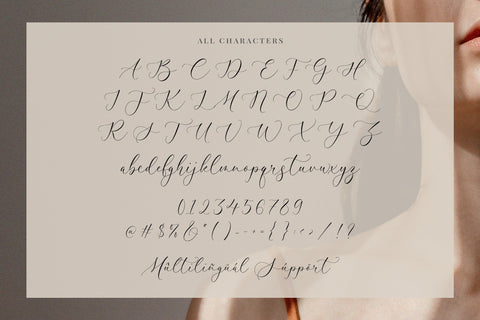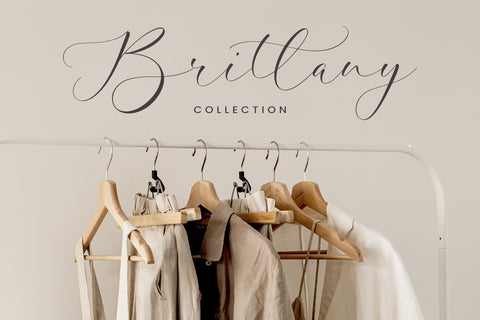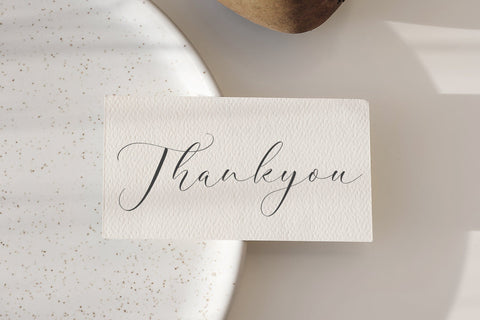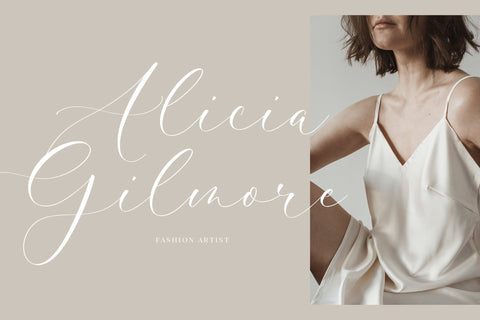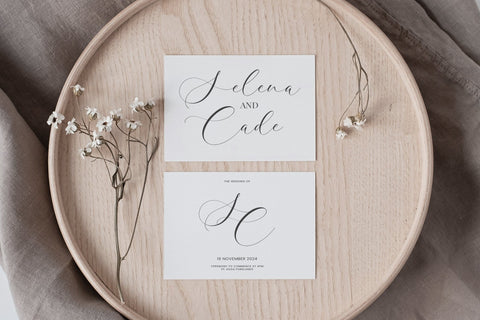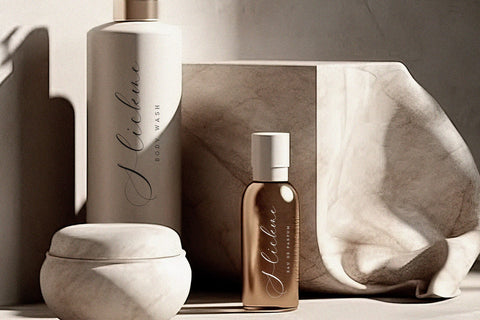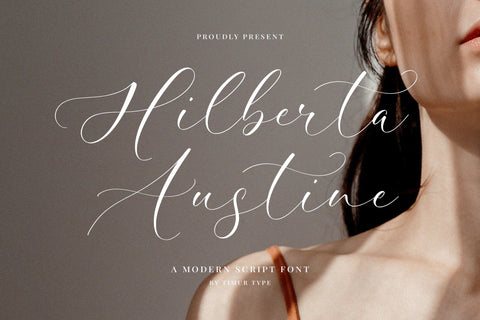
Hilberta Austine - Modern Script Font
Hilberta Austine is a Modern Script Font
This font leads you into the enchanting world of modern script fonts, where written words transcend mere communication and turn into visual masterpieces. These fonts, decorated with elegant and eye-catching strokes, redefine the art of typography. Each letter becomes a brushstroke , meticulously crafted to weave a narrative of sophistication and elegance. Graceful curves and intricate sweeping details add a touch of luxury, turning every word into a work of art.
Hilberta Austine Font also supports multilingualism.